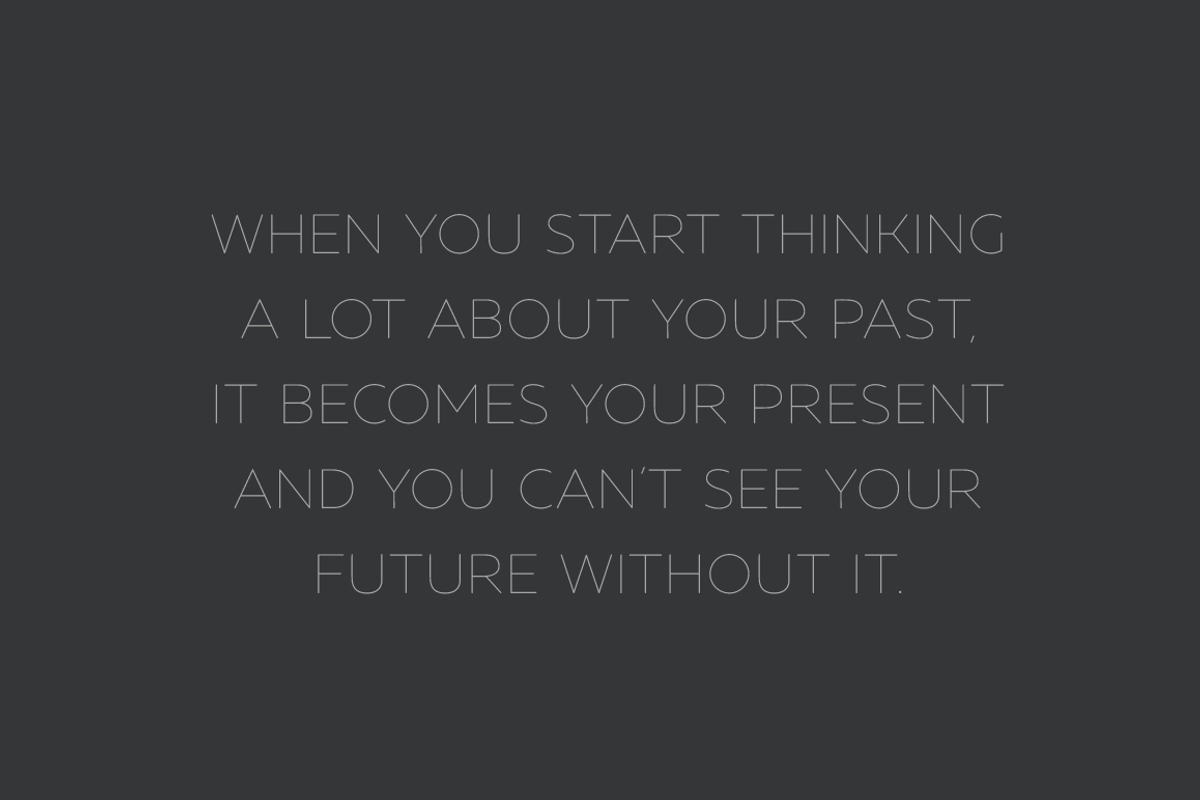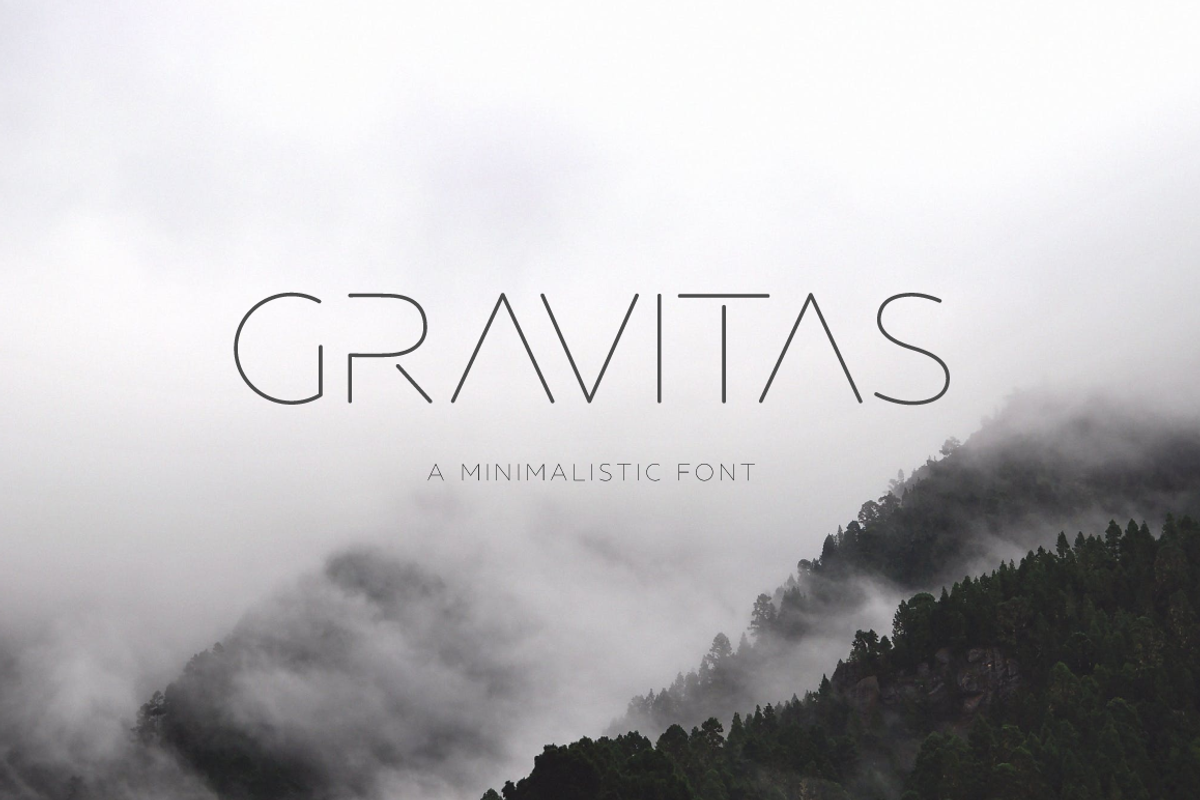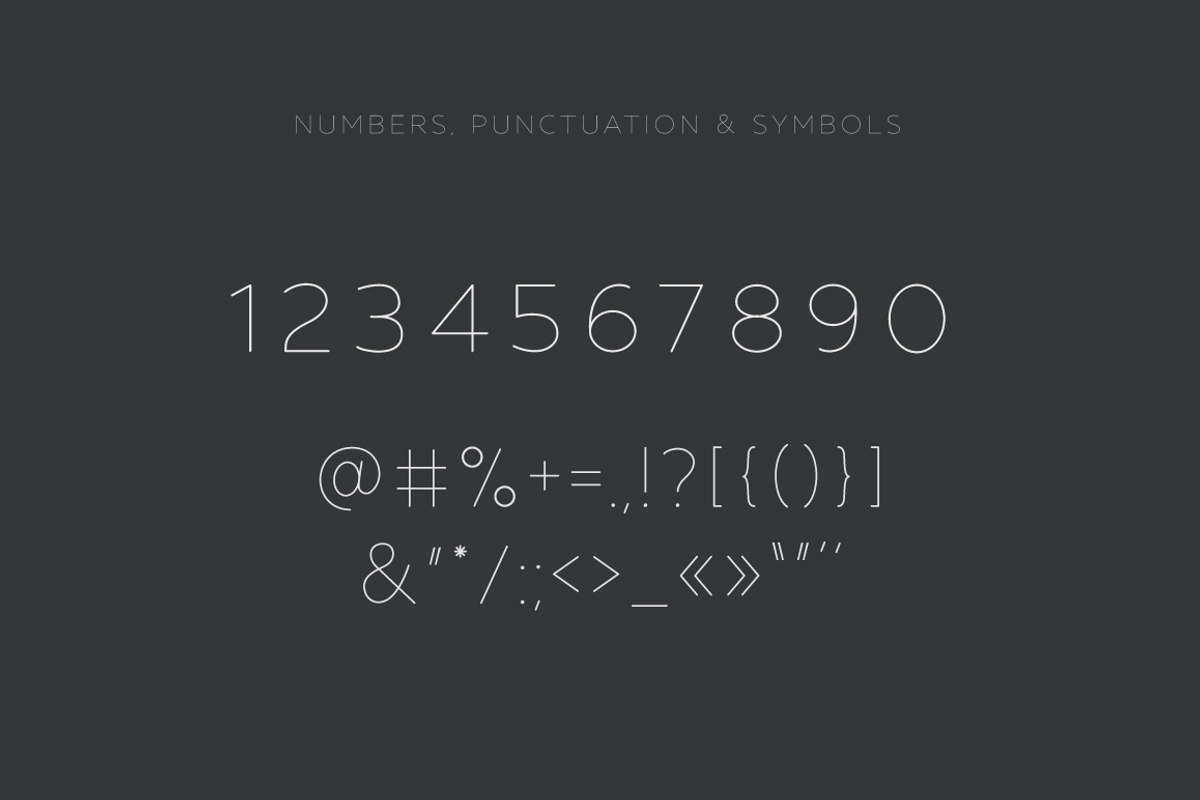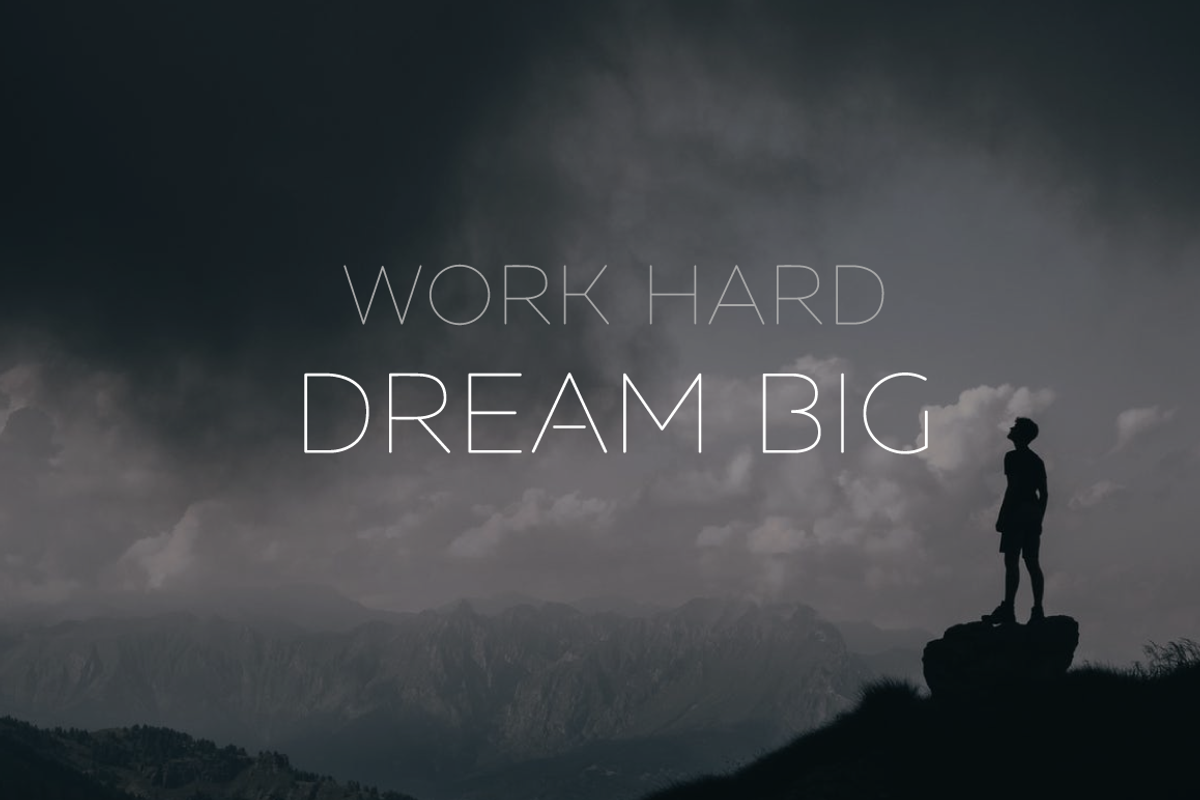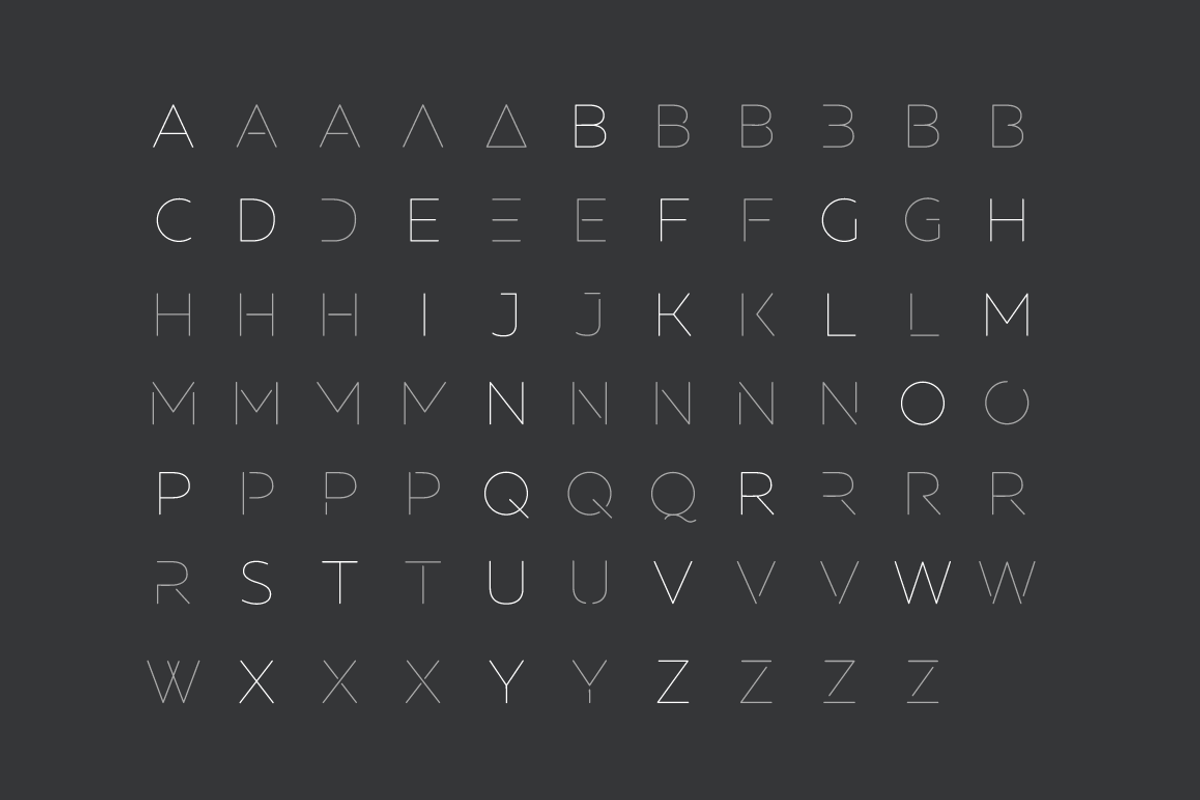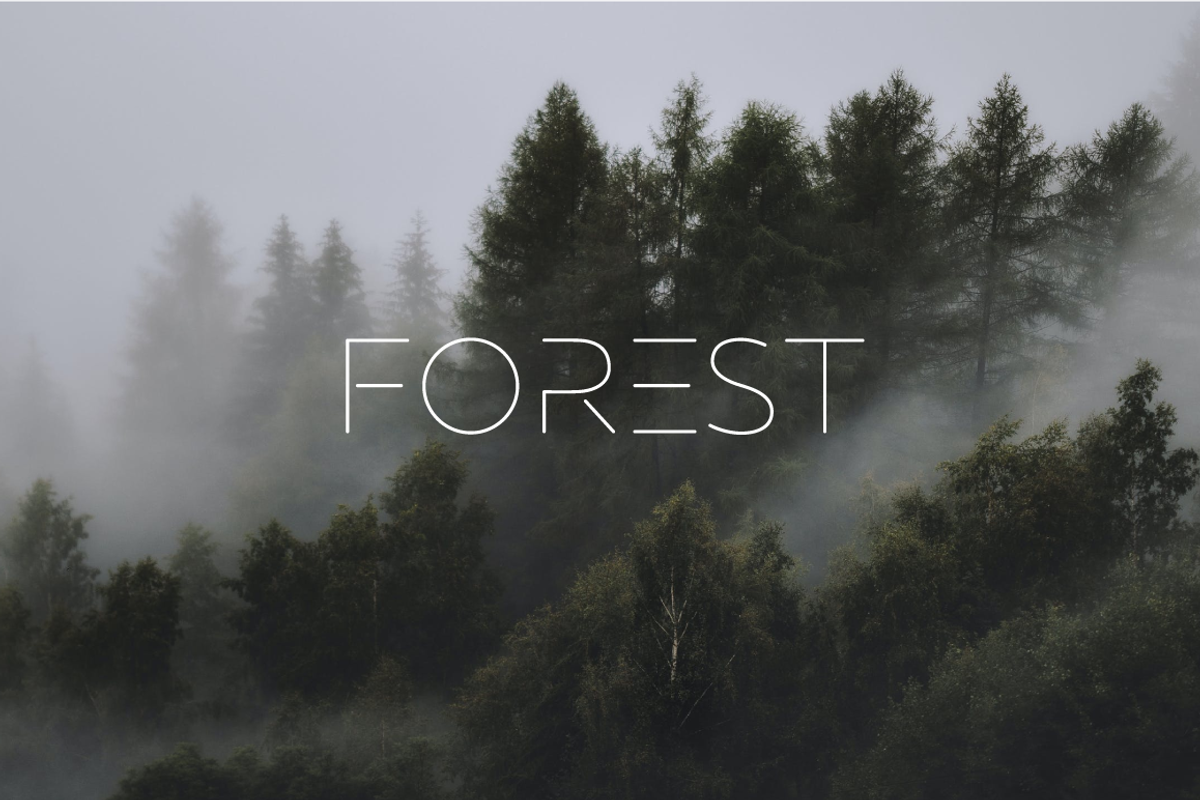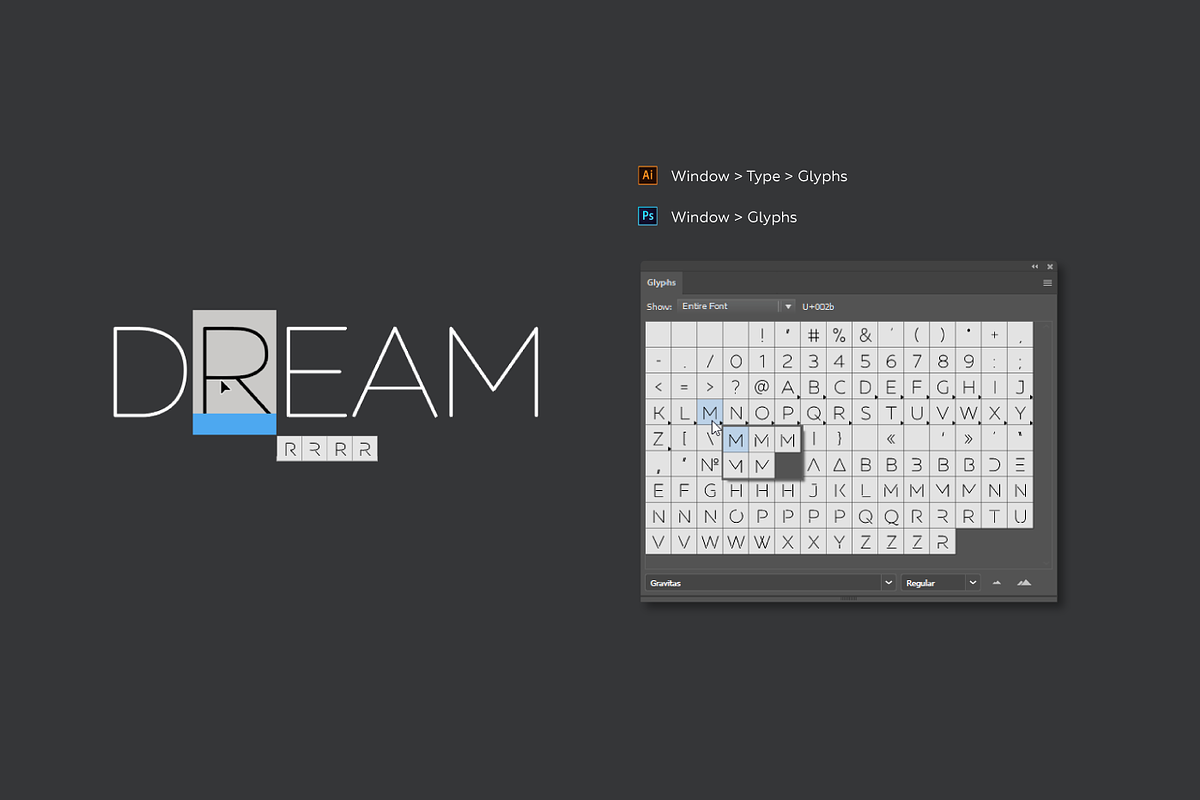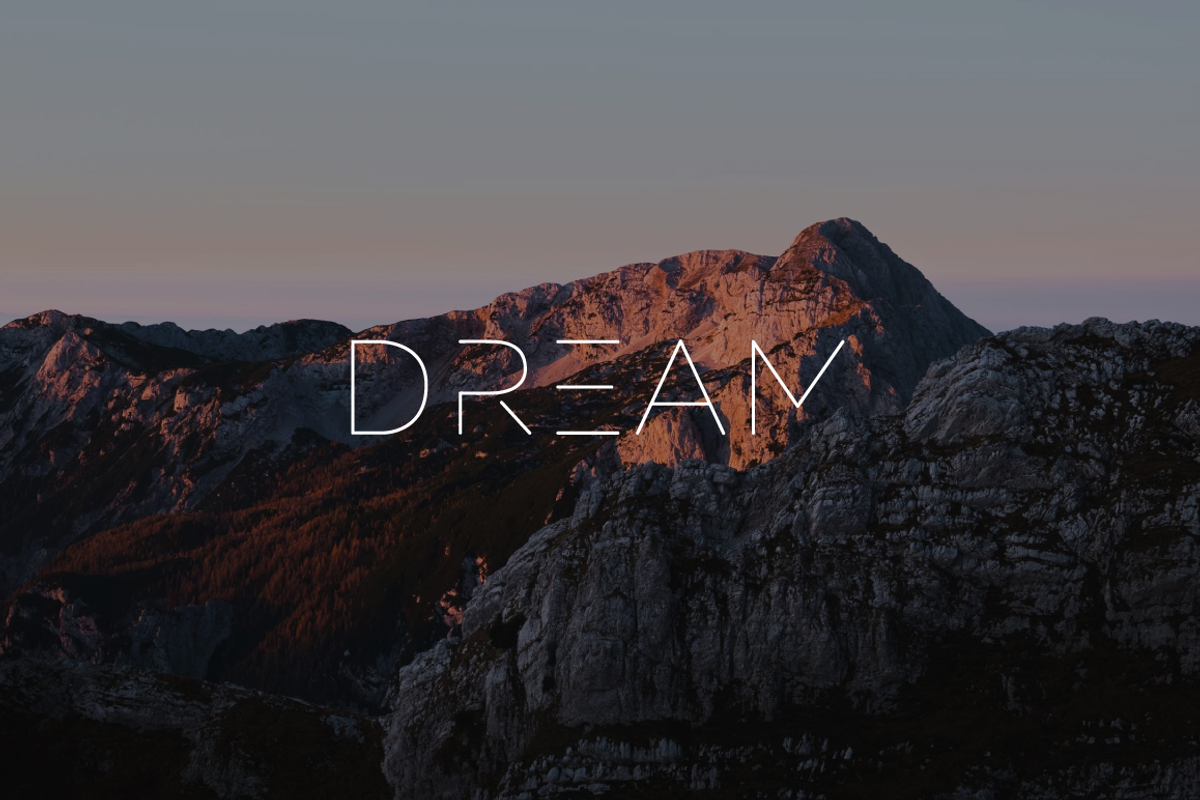
GRAVITAS | Modern font
GRAVITAS is a modern and futuristic sans serif font. The combination of futuristic and geometric elements renders a modern design.